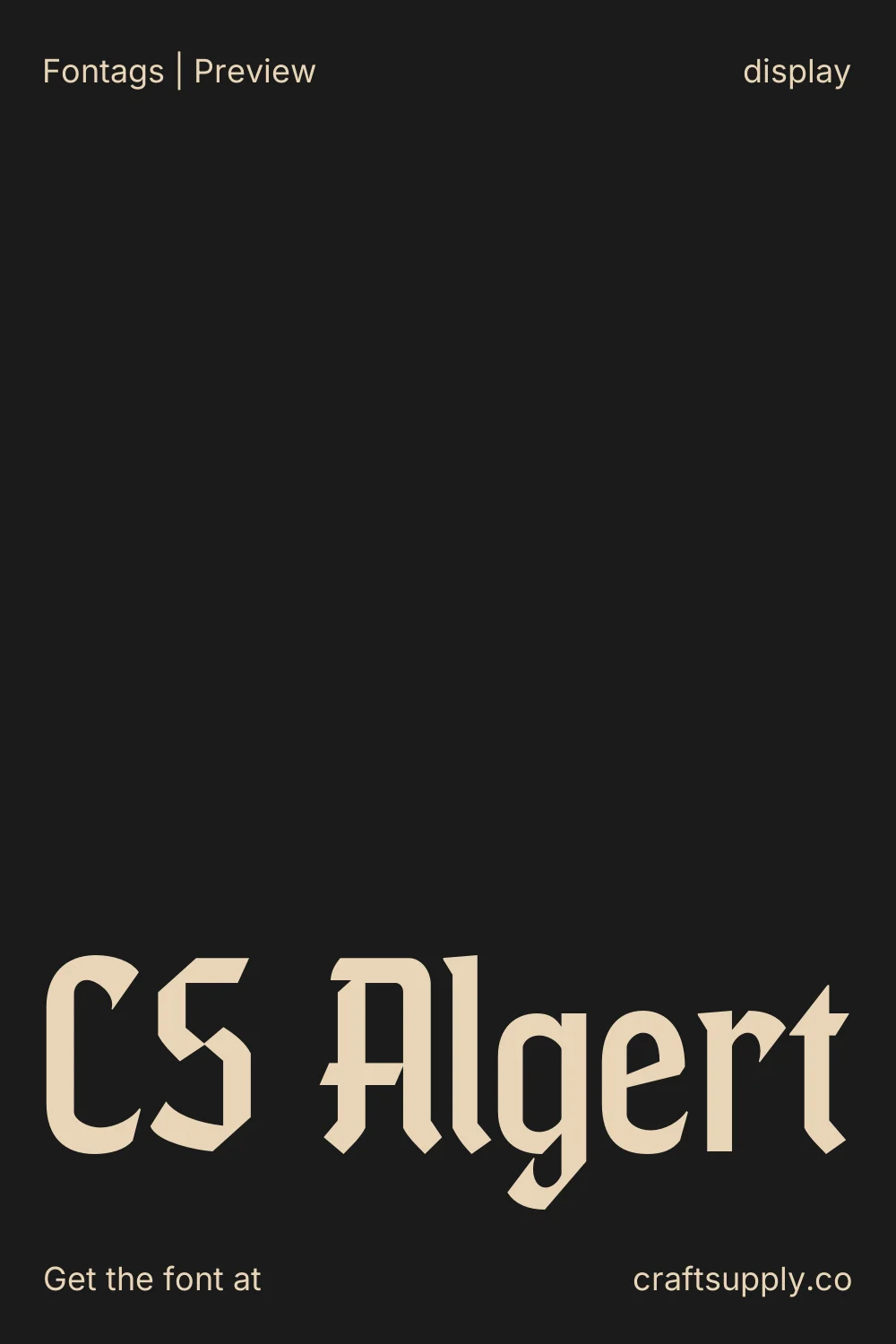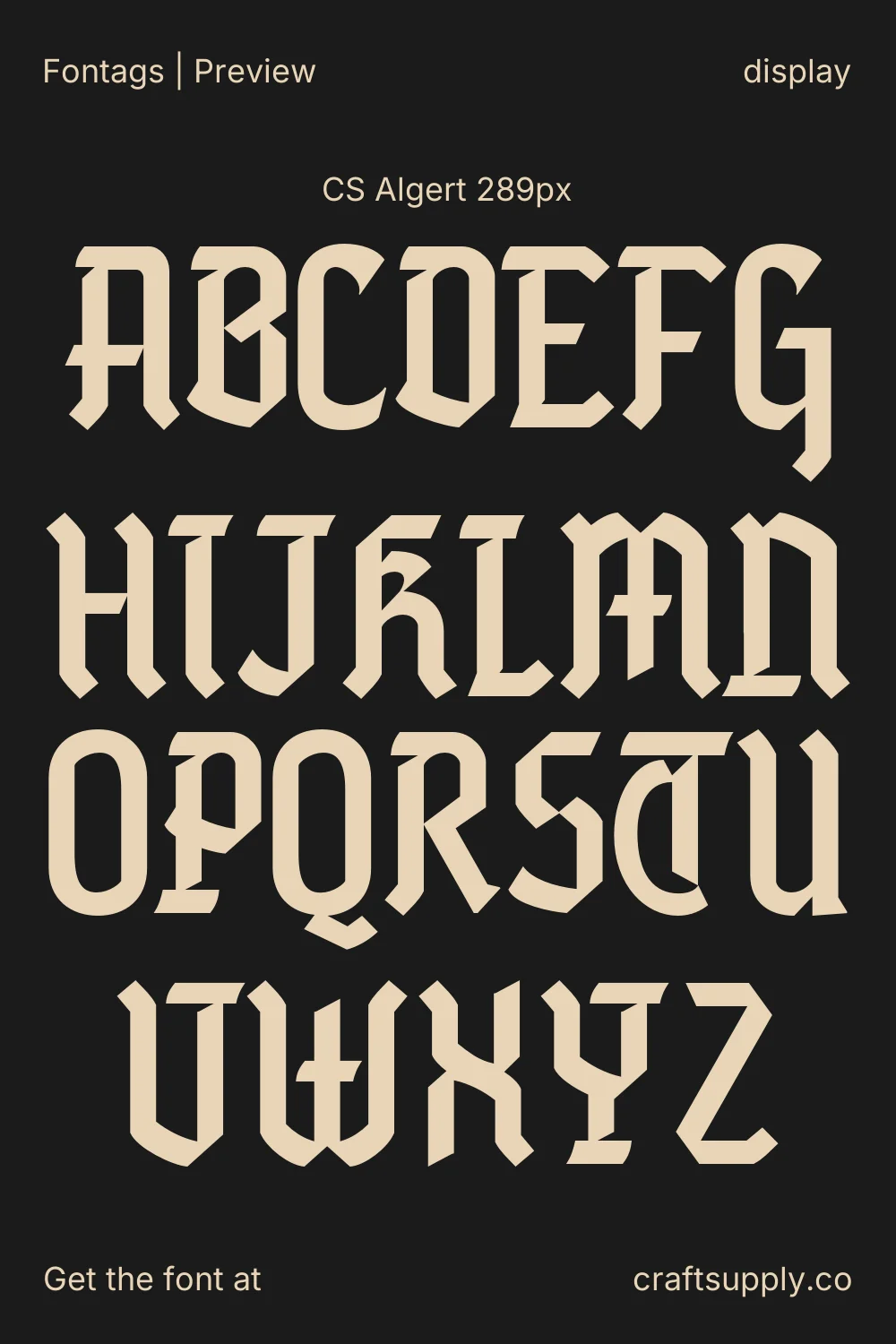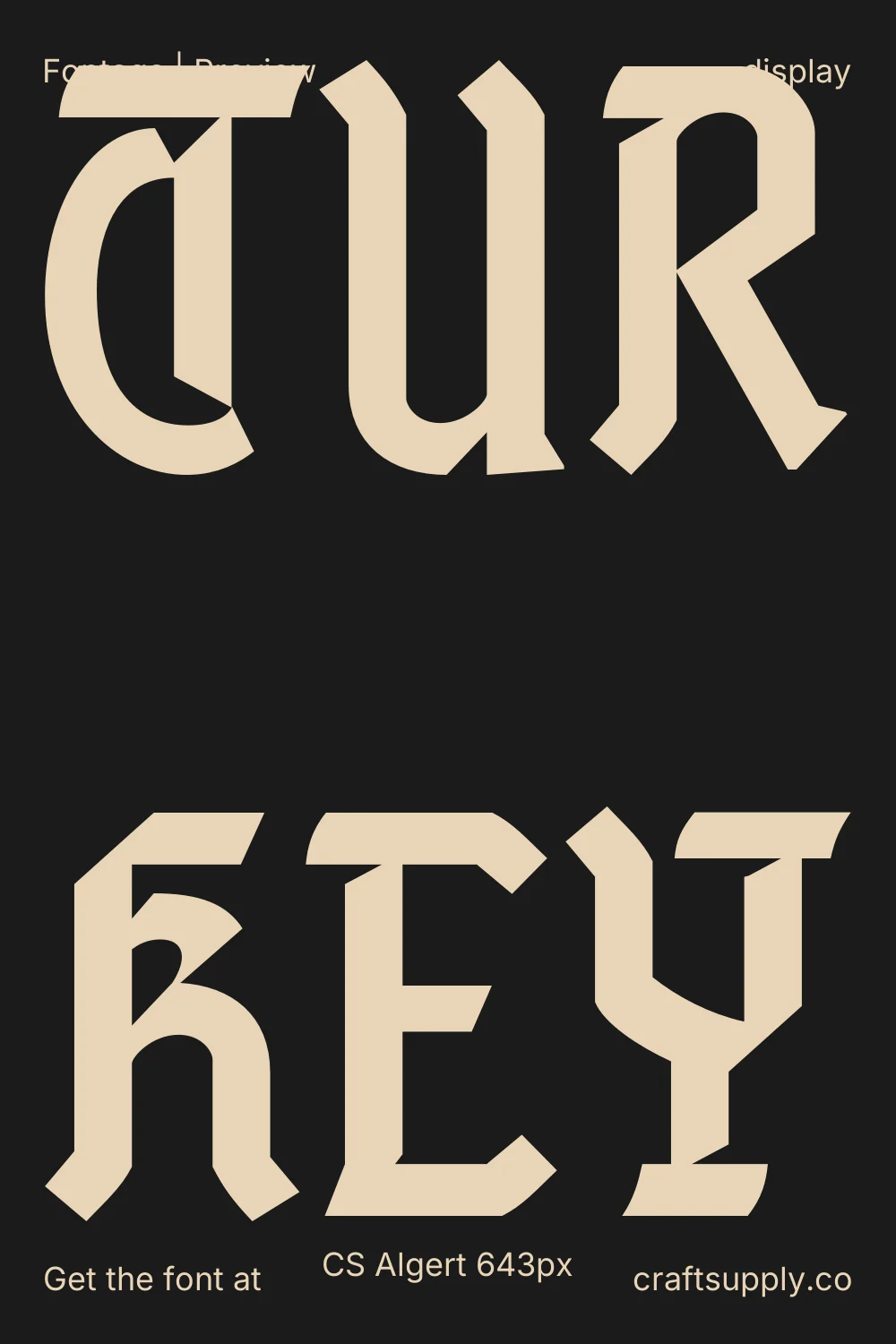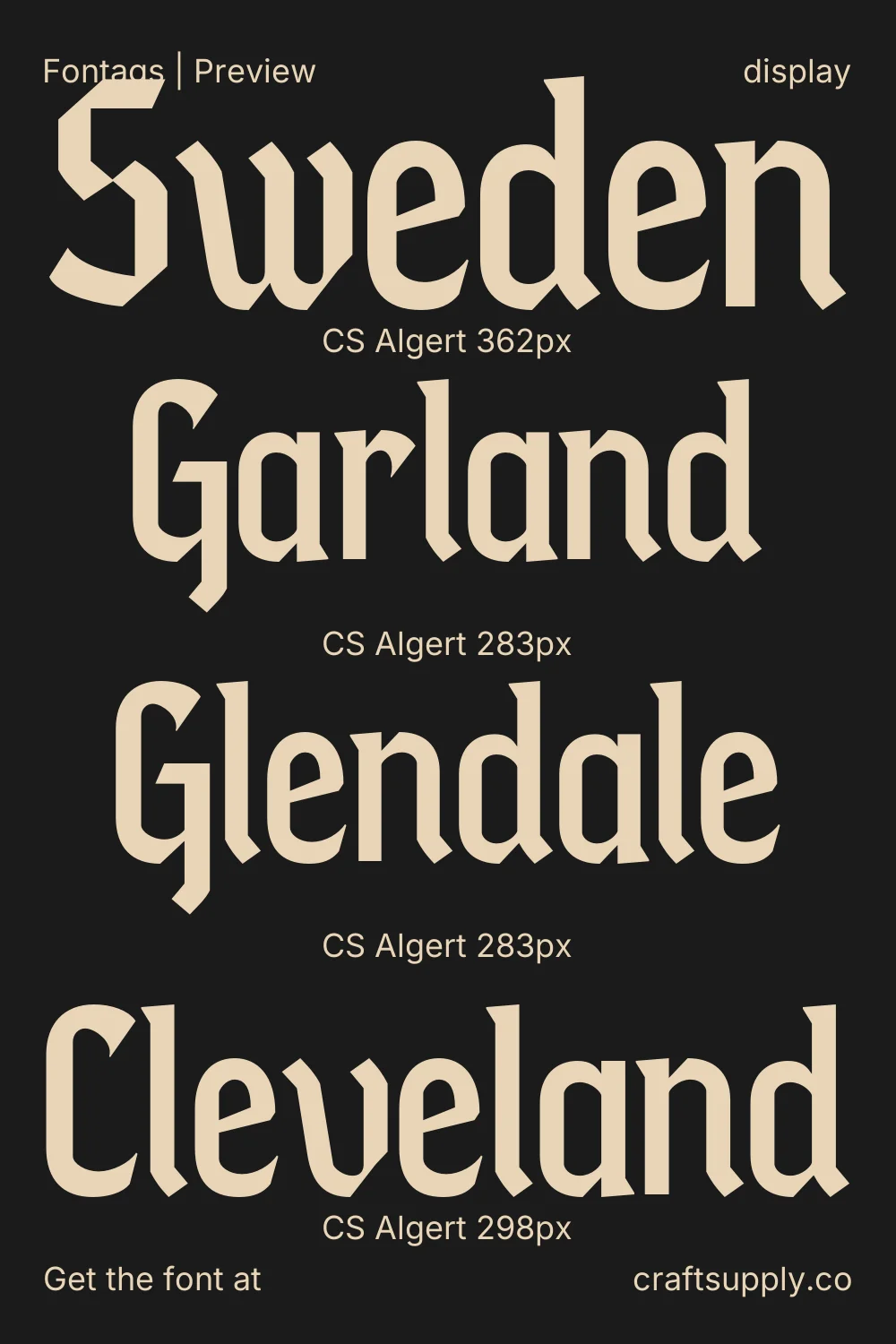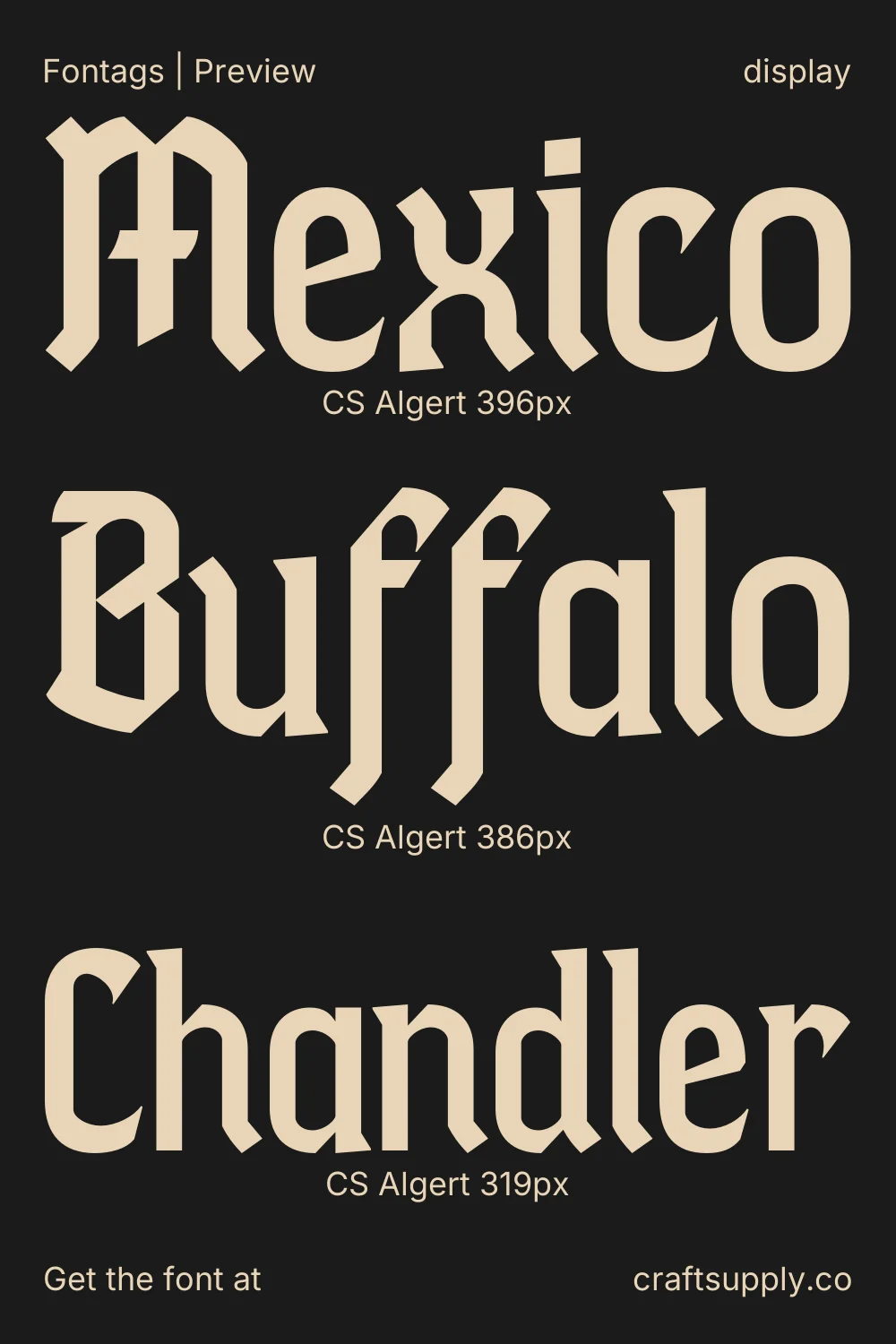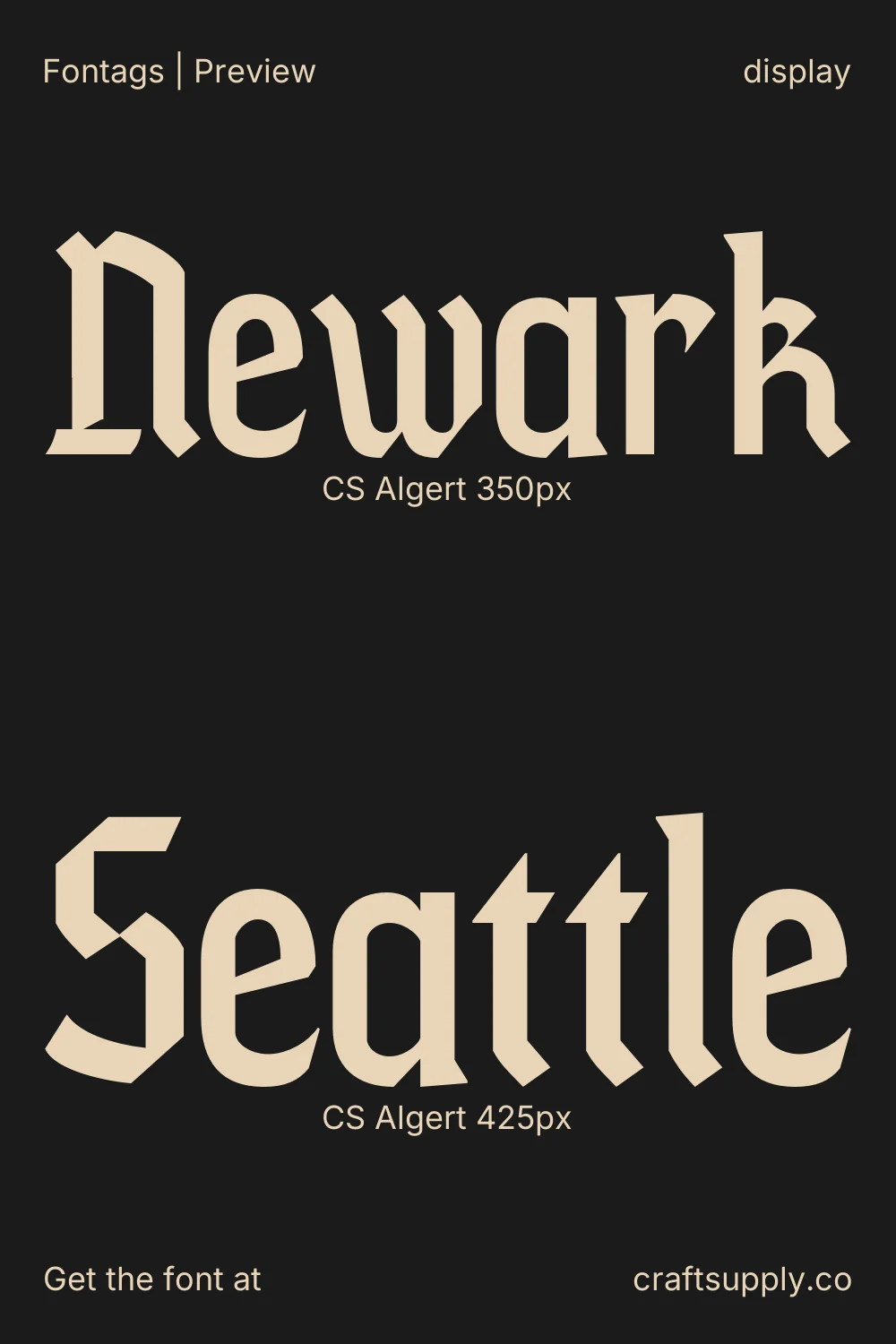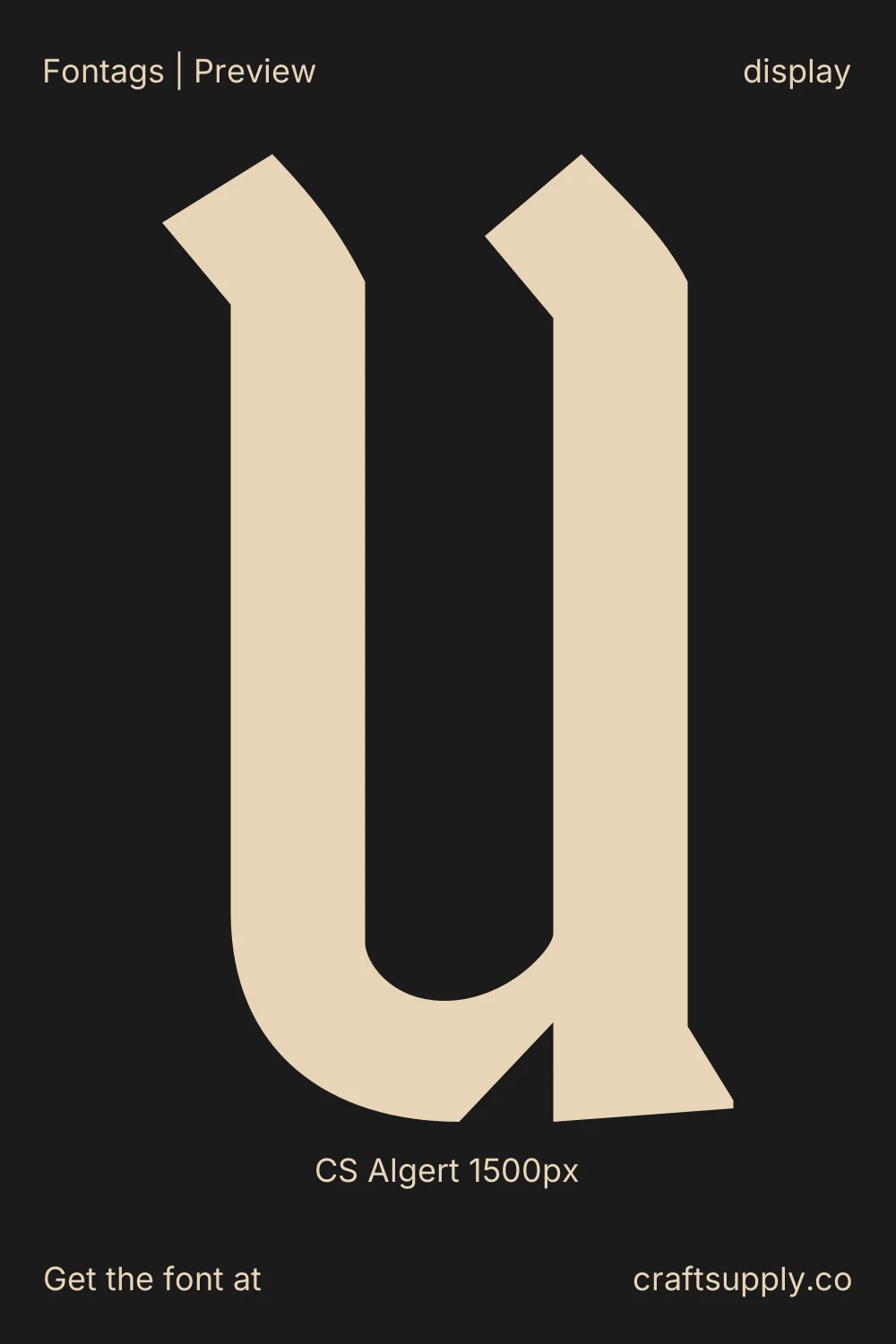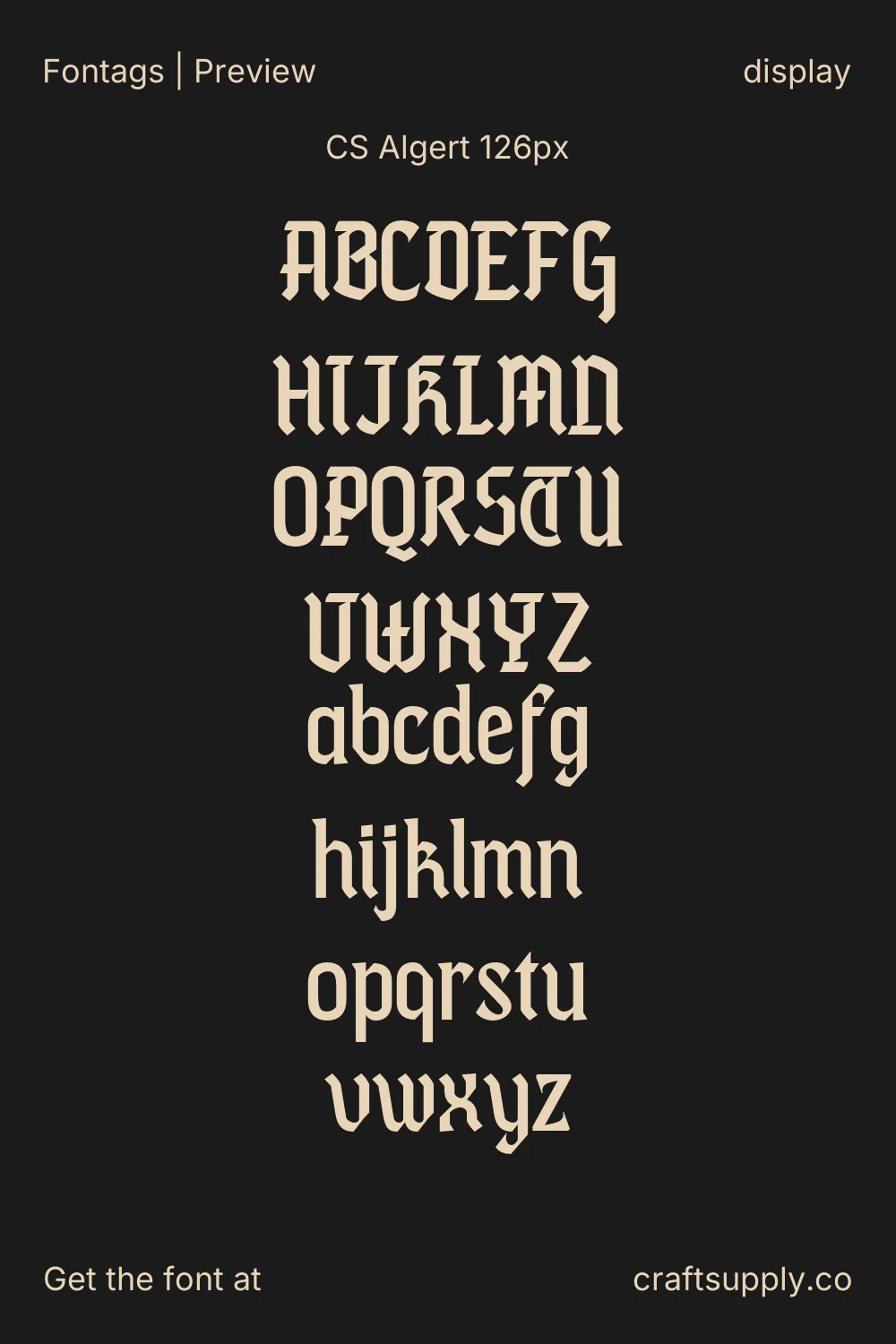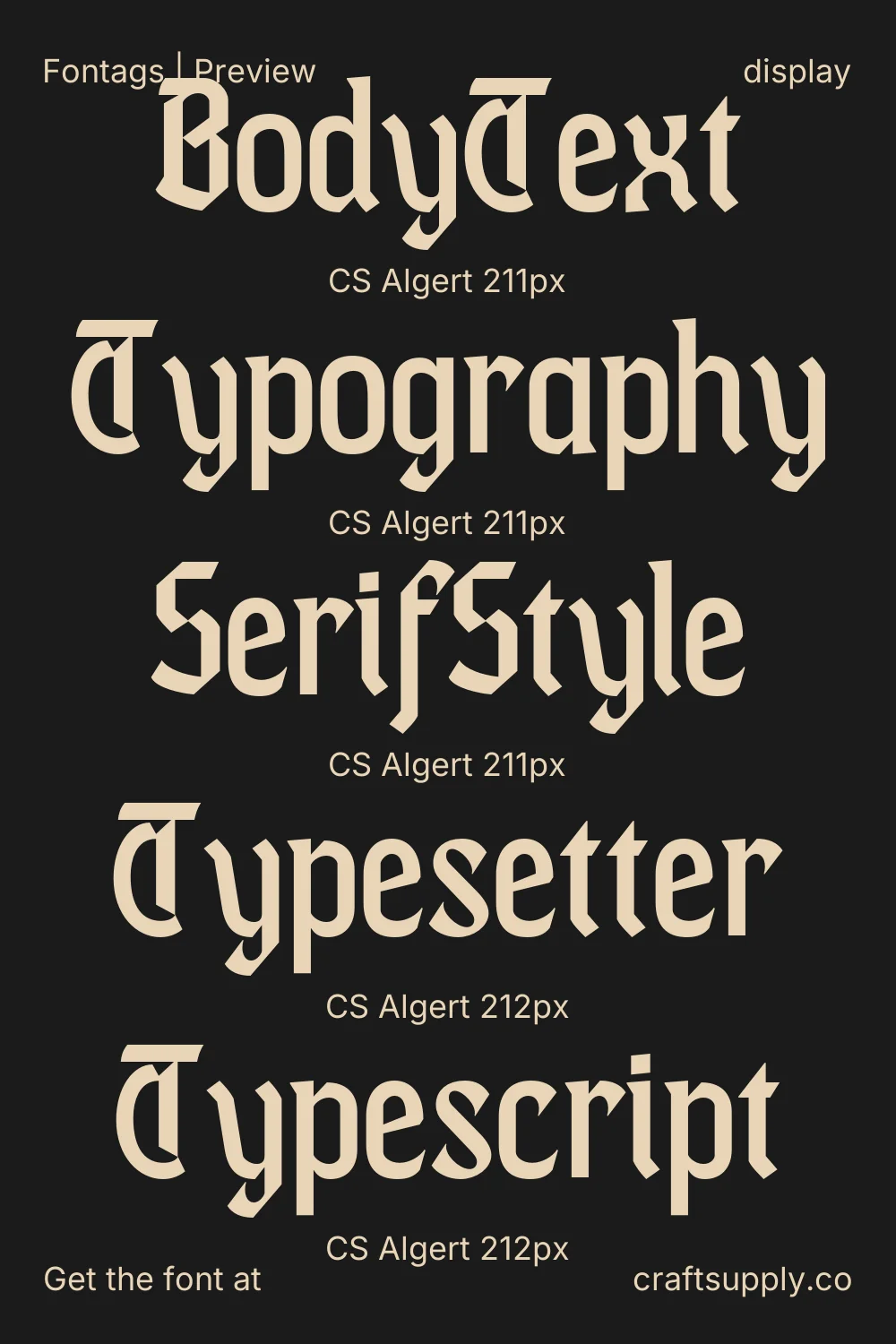
CS Algert
CS Algert is a modern Blackletter display font that blends traditional ornate letterforms with a contemporary edge. Its dramatic and sophisticated look makes it ideal for luxury branding, headlines, and themed event materials requiring a touch of historical elegance.